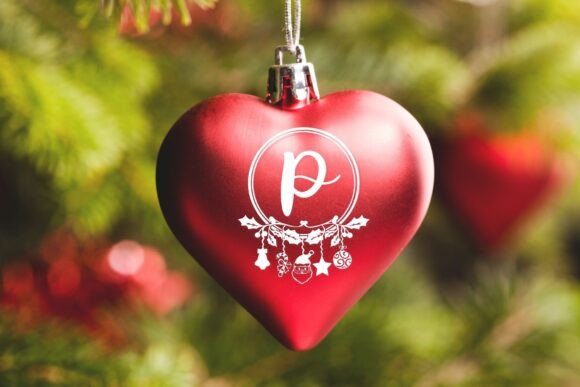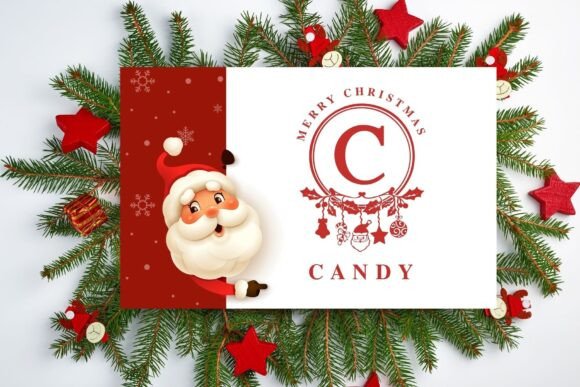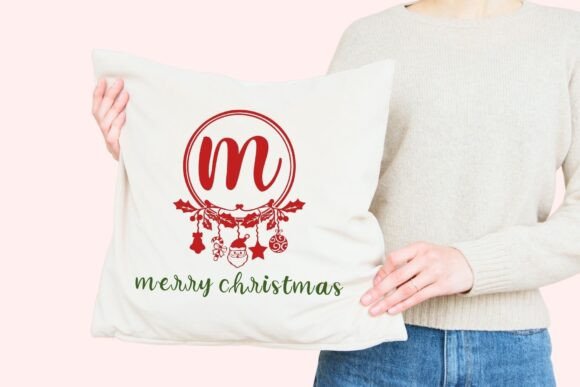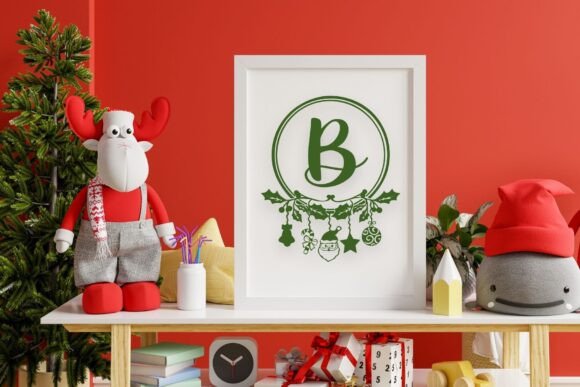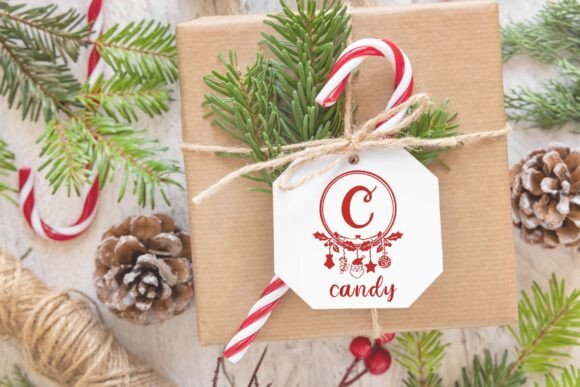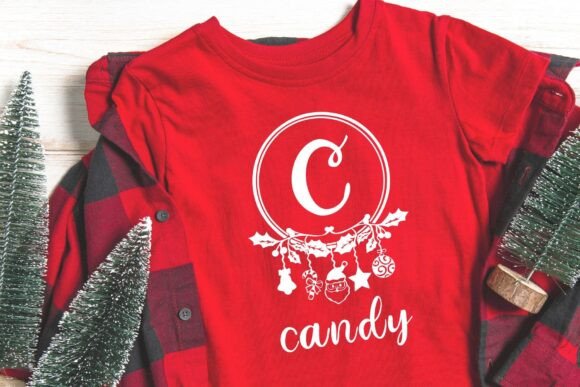
Christmas Monogram Font: Add a Touch of Holiday Cheer to Your Designs
Christmas is just around the corner, and what better way to get into the holiday spirit than with a festive font that screams joy and cheer? Look no further than the Christmas Monogram Font, a fun and elegant font designed specifically for the holiday season. In this article, we’ll dive into the details of this beautiful font, its features, and how you can use it to create stunning holiday designs.
What is Christmas Monogram Font?
Christmas Monogram Font is a decorative font that combines elegant and playful letters with Christmas-themed details. Its unique design makes it perfect for creating personalized holiday cards, invitations, and festive designs that will leave a lasting impression on your loved ones. Whether you’re a designer, crafter, or simply someone who loves the holiday season, this font is sure to become your new favorite go-to.
Key Features of Christmas Monogram Font
- Elegant and Playful Design: The Christmas Monogram Font boasts an elegant and playful design that is sure to capture the essence of the holiday season.
- Christmas-Themed Details: The font features Christmas-themed details, such as holly leaves, snowflakes, and bells, that add a touch of festive cheer to your designs.
- Monogram Style: The font is designed in a monogram style, making it perfect for creating personalized holiday cards, invitations, and gifts.
Uses for Christmas Monogram Font
Christmas Monogram Font is a versatile font that can be used for a variety of holiday designs, including:
- Holiday Cards: Create personalized holiday cards with the recipient’s name or initials in a beautiful, festive font.
- Invitations: Design festive holiday invitations for parties, gatherings, and other celebrations.
- Festive Designs: Use the font to create festive designs for social media, blogs, and websites.
- Crafting Projects: Add a touch of holiday cheer to your crafting projects, such as scrapbooking, paper crafting, and DIY gifts.
Tips for Using Christmas Monogram Font
Here are some tips for getting the most out of Christmas Monogram Font:
- Experiment with Colors: Try pairing the font with different colors, such as red and green, gold and silver, or blue and white, to create a unique and festive look.
- Add Graphics: Add graphics, such as holly leaves, snowflakes, or bells, to enhance the festive feel of your designs.
- Mix and Match: Mix and match the font with other fonts and styles to create a unique and eye-catching design.
Christmas Monogram Font is a beautiful and festive font that is sure to add a touch of holiday cheer to your designs. With its elegant and playful design, Christmas-themed details, and monogram style, it’s perfect for creating personalized holiday cards, invitations, and festive designs. Whether you’re a designer, crafter, or simply someone who loves the holiday season, this font is sure to become your new favorite go-to. So why wait? Download Christmas Monogram Font today and start creating stunning holiday designs that will leave a lasting impression on your loved ones.